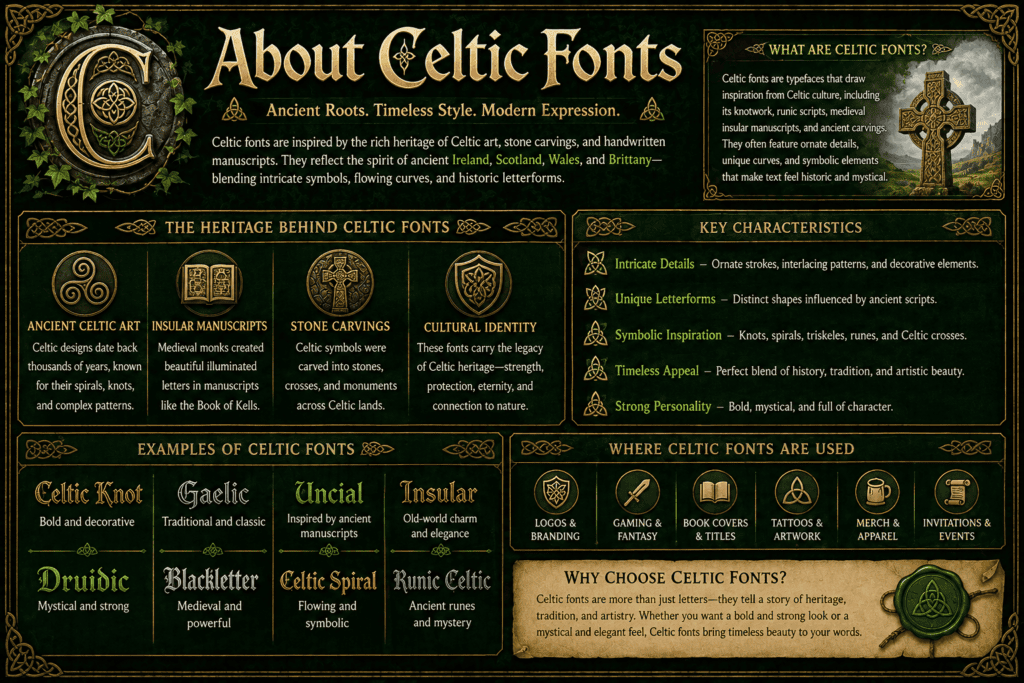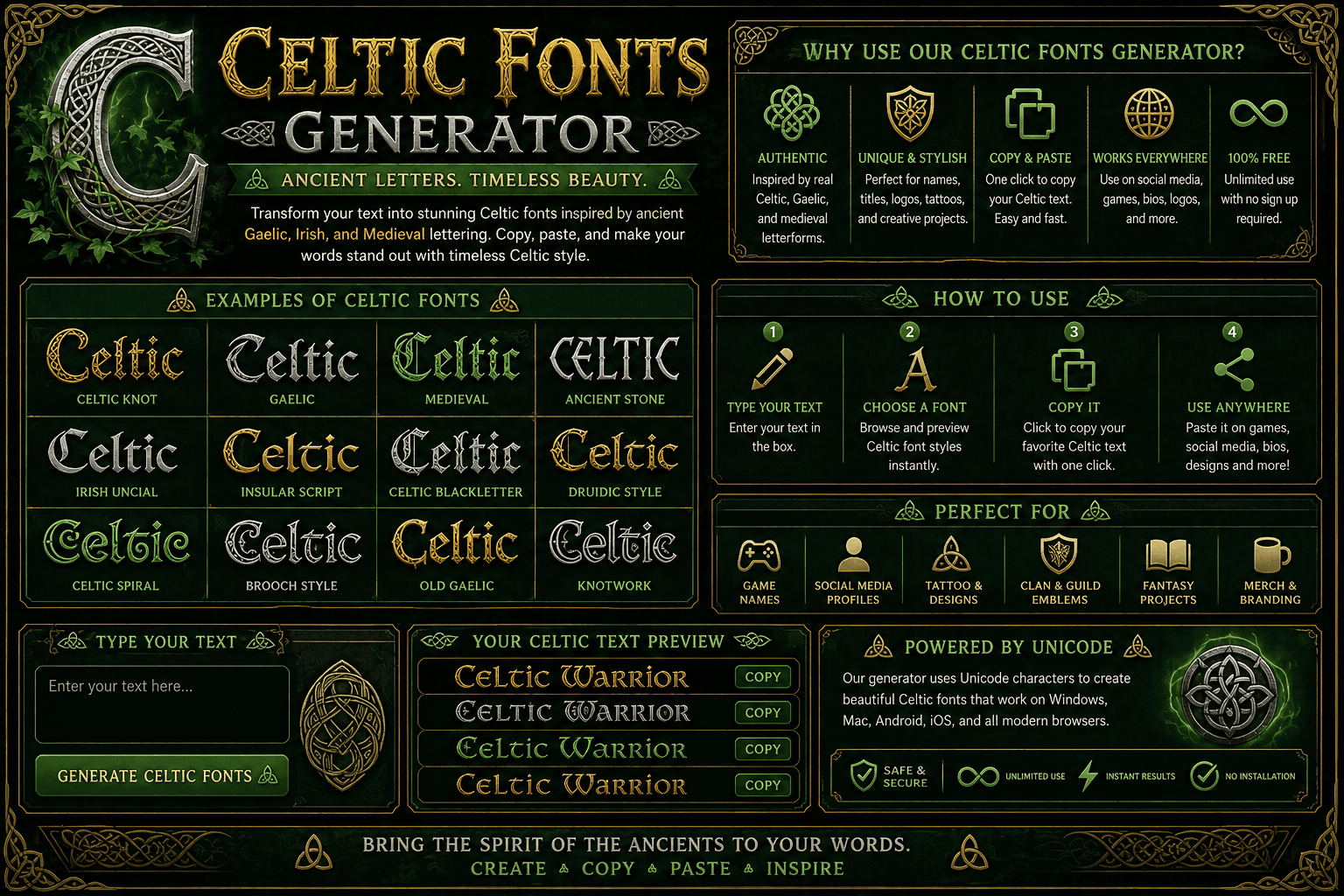
Celtic Fonts Generator
Create elegant Celtic-inspired text with medieval, ancient, ornamental, and inscription-style typography. Customize your text and copy or download the finished design.
A Celtic font generator turns historic letterforms into practical design choices, letting you test Celtic fonts quickly before committing. From my experience, early visual testing prevents awkward spacing, weak contrast, and unsuitable character shapes today.
Rather than treating ornate lettering as decoration alone, I use curated collections to match mood, readability, and purpose. A mobile-friendly interface and free access also make experimentation easier when fresh ideas develop between projects today.
I begin with the Celtic Fonts Generator by testing a phrase, then adjust the Font Preview until letter spacing feels balanced. This keeps ornate details readable while revealing whether the chosen style suits my project.
For generate text tasks, I compare Font Size options before saving the image. Checking contrast, spacing, and punctuation early prevents awkward results, especially when preparing invitations, social graphics, or decorative headings for different screens today.
About Celtic Fonts
Celtic fonts often draw from historical designs, insular scripts, and Celtic knots, yet modern typefaces can sharpen readability. In my practice, the strongest results balance ancient Celts character with clean, contemporary lettering for digital work.
Their identity also connects Ireland, Celtic culture, medieval manuscripts, and decorated initial letter traditions. I find Celtic Irish fonts especially useful for invitations, tattoos, and Irish themed projects, where distinctive lettering supports Gospels inspired artwork.
Why Use Our Celtic Font Generator?
I use a Celtic font tool when character matters, especially for titles, badges, and themed projects. The Latest styles often balance historical texture with readability, so I can test a Popular look without sacrificing clarity.
From Kells and Celtic Garamond The 2nd to Kells Uncial, I compare forms before settling on one. A good generator lets me adjust Font Color, preview text, and choose Large or Small output for consistent results.
Font listings become easier to compare when each preview shows distinctive Celtic forms, historical themes, and readable spacing. I usually test several Celtic fonts before choosing one for Irish festivals, greeting cards, or digital designs.
A useful listing should reveal font family details, alternate letter shapes, and practical rendering quality rather than promising style alone. Check diacritic letters, decorations, and modern Celtic fonts together, then select the strongest visual match.
A strong Celtic font choice begins with intent: Font Preview can reveal whether Gothic Texture Quadrata feels appropriate for headings, logos, or artwork. My approach is to test readability first, then refine character and spacing.
Celtic fonts work well for tattoos, invitations, scrapbook layouts, stationary, and Irish themed projects. I also use them for Saint Patrick’s Day, festival graphics, social posts, posters, personal branding when heritage needs visual character.